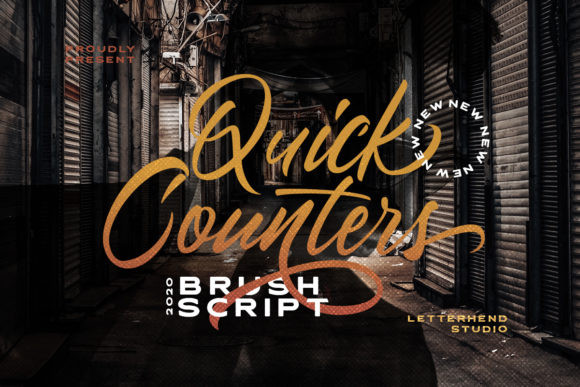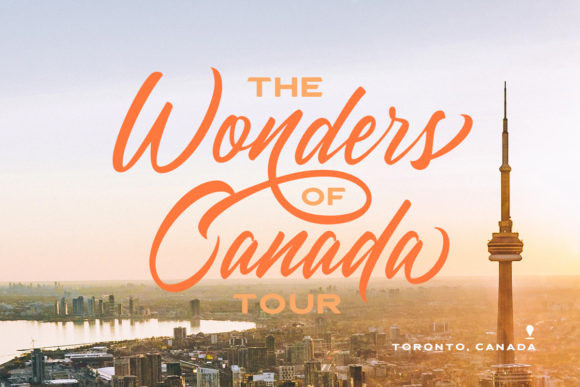
Quick Counters Font
Quick Counters is a sweet and friendly handwritten font. Its natural and unique style makes it incredibly fitting for a large pool of designs. The only limit is your imagination!
It looks stunning on wedding invitations, thank you cards, quotes, greeting cards, logos, business cards and every other design which needs a handwritten touch.